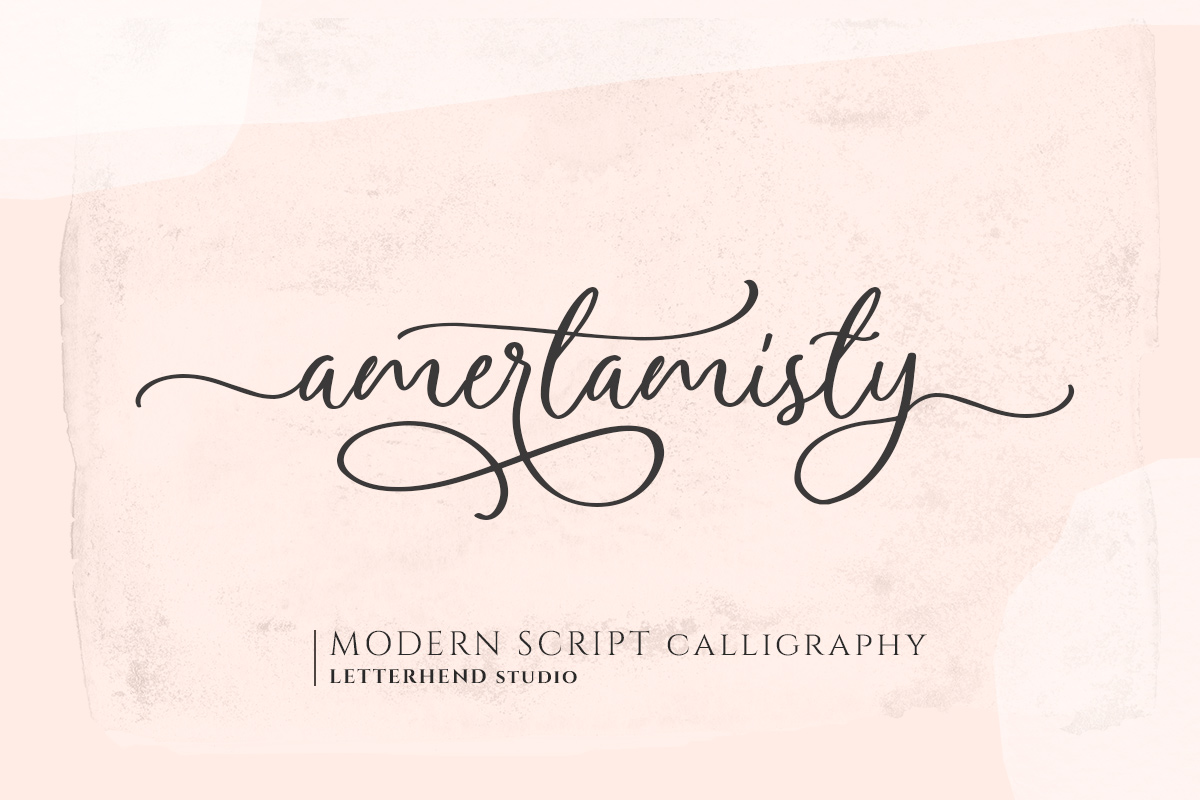
Amerta Misty Script Font
The Amerta Misty Script Font is perfect for romantic wedding stationery, dreamy social media graphics, ethereal brand logos, mystical spa branding, artistic poetry books, whimsical children's illustrations, feminine lifestyle blogs, and enchanting event invitations. This magical typeface brings soft, otherworldly charm to any design project requiring gentle mystique and romantic atmosphere.
What makes the Amerta Misty Script Font so exciting is its captivating ability to create an ethereal, dreamlike quality through delicate letterforms that seem to float like morning mist. The font features flowing curves with subtle texture variations and gentle imperfections that evoke handwritten letters penned in a mystical forest clearing, creating an enchanting visual experience that feels both intimate and magical.
The Amerta Misty Script Font family includes regular and bold weights, stylistic alternates, decorative swashes, mystical ornaments, and connecting ligatures, providing designers with enchanting typographic elements for creating cohesive dreamy brand experiences and whimsical design narratives.
Embrace ethereal beauty with the Amerta Misty Script Font Free Download. This enchanting typeface has captured the hearts of romantic brand designers, wedding planners, and creative professionals who seek typography that conveys mystery, femininity, and gentle magic. The font features comprehensive character support including uppercase and lowercase letters, numerals, punctuation, and decorative mystical elements.
Whether you're designing materials for bohemian wedding celebrations, creating branding for wellness retreats, or developing graphics for artistic lifestyle brands, this font delivers captivating charm. The carefully crafted letterforms flow together like wisps of morning fog, creating beautiful word shapes that enhance the emotional resonance of romantic and mystical messaging.
Creative professionals value the font's unique ability to balance legibility with artistic expression, creating typography that feels genuinely handcrafted rather than digitally manufactured. The subtle textural qualities and organic flow help brands establish deep emotional connections with audiences who appreciate artistry, romance, and spiritual aesthetics.
The Amerta Misty Script Font excels in applications where mood and atmosphere are essential, from luxury wellness branding to artistic book covers. The font's mystical presence adds depth and emotional resonance while maintaining excellent readability across various romantic and artistic contexts.